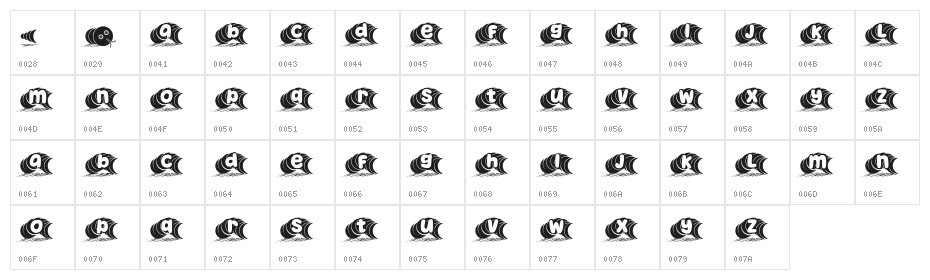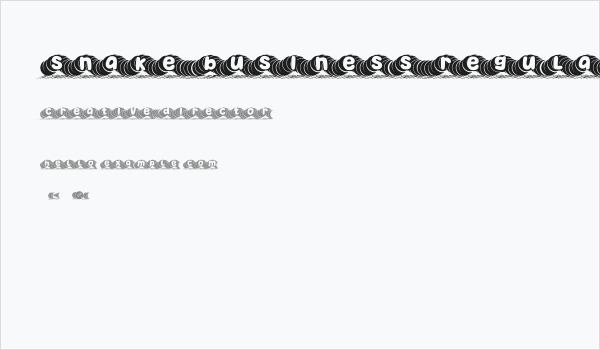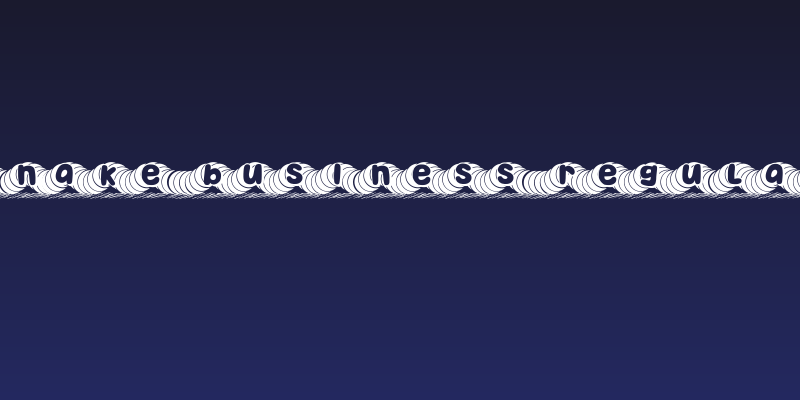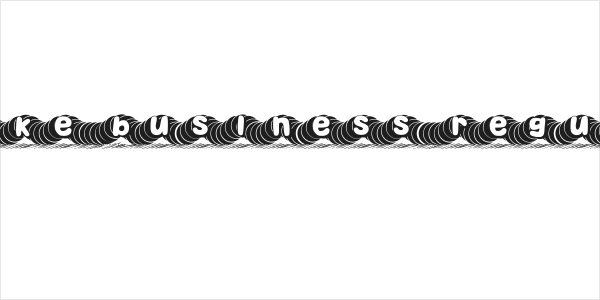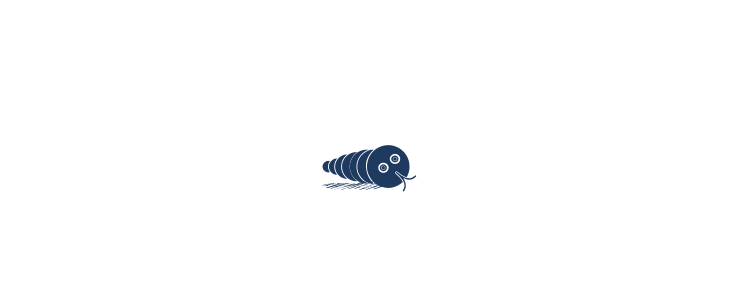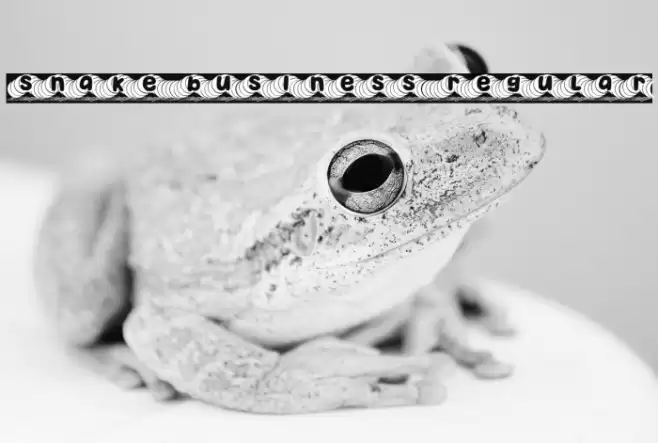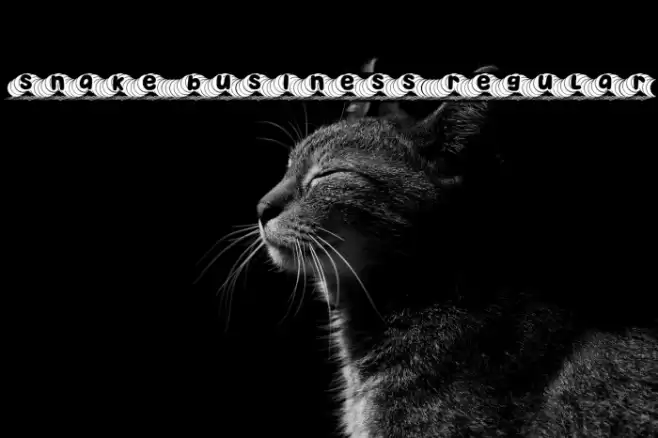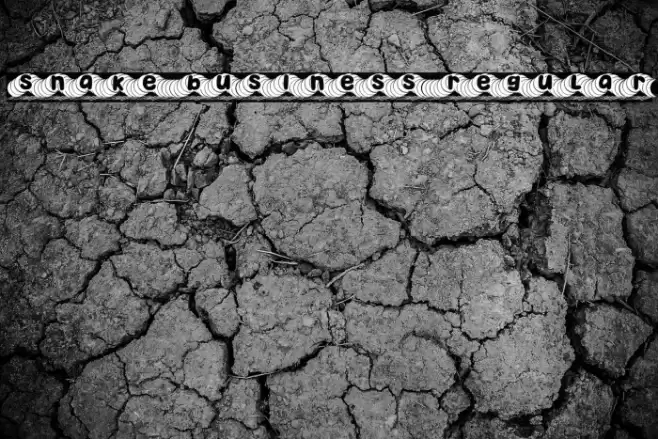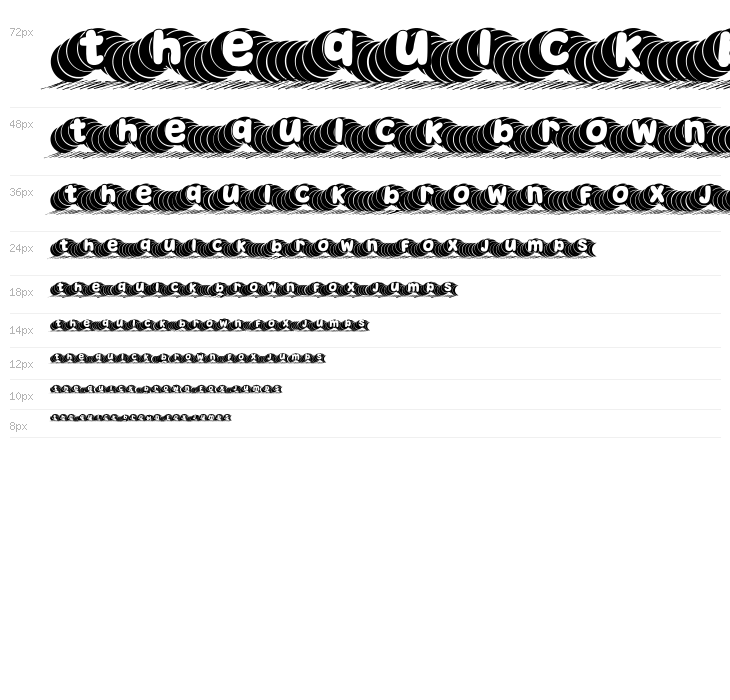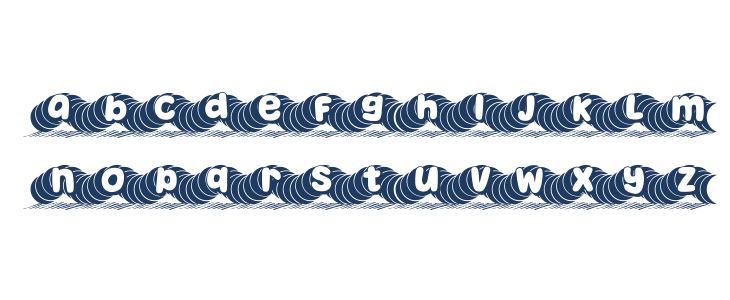
Snake Business Regular Font
Snake Business Regular Description
This font features a unique and playful design where each character is enveloped in a stylized snake-like pattern. The letters are bold and rounded, with a whimsical touch that makes them stand out. The intricate detailing of the snake scales adds a decorative element, making the font visually engaging. The overall appearance is both fun and artistic, suitable for creative projects that require a distinctive and eye-catching typeface.
| Use Case | Logos, Headlines, Posters |
| Proposed Projects | Ideal for children's book covers, playful branding, themed event invitations, and creative posters. |